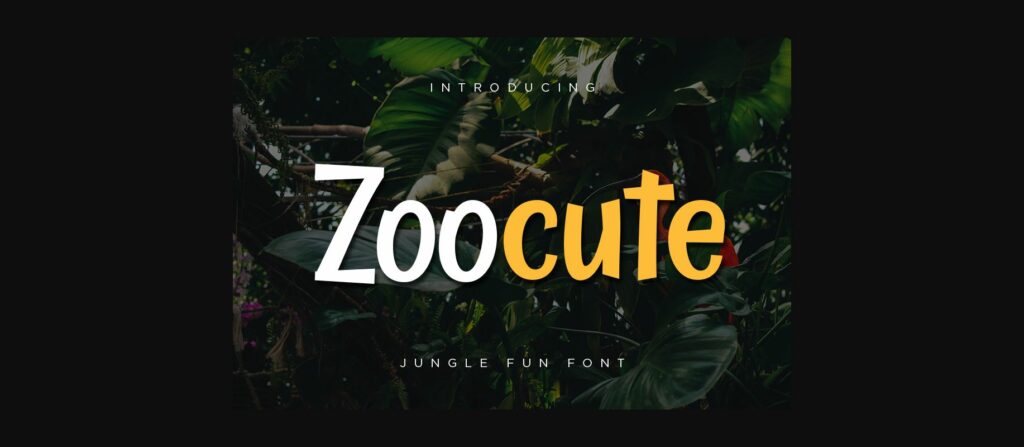
About Zoocute Font
Zoocute is a cute and casual handwritten font with an incredibly friendly feel. Whether you’re looking for fonts for Instagram or calligraphy scripts for DIY projects, Zoocute will turn any creative idea into a true piece of art!